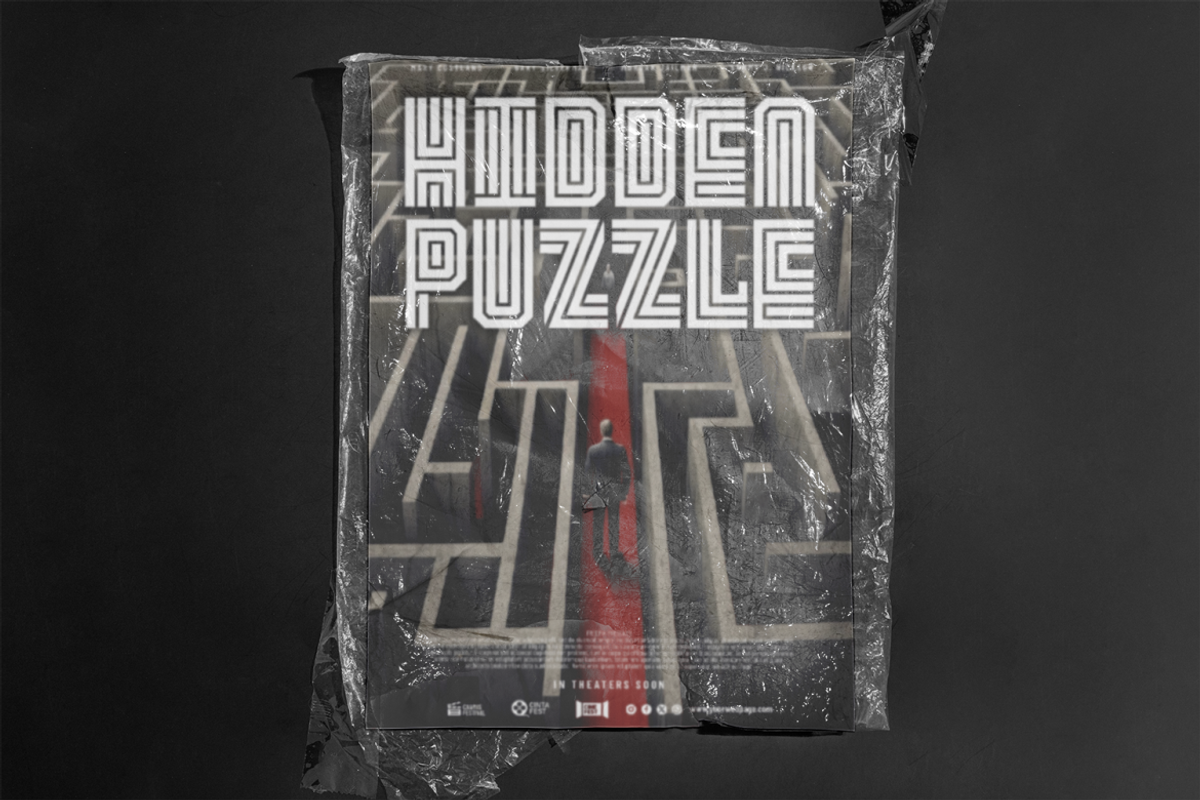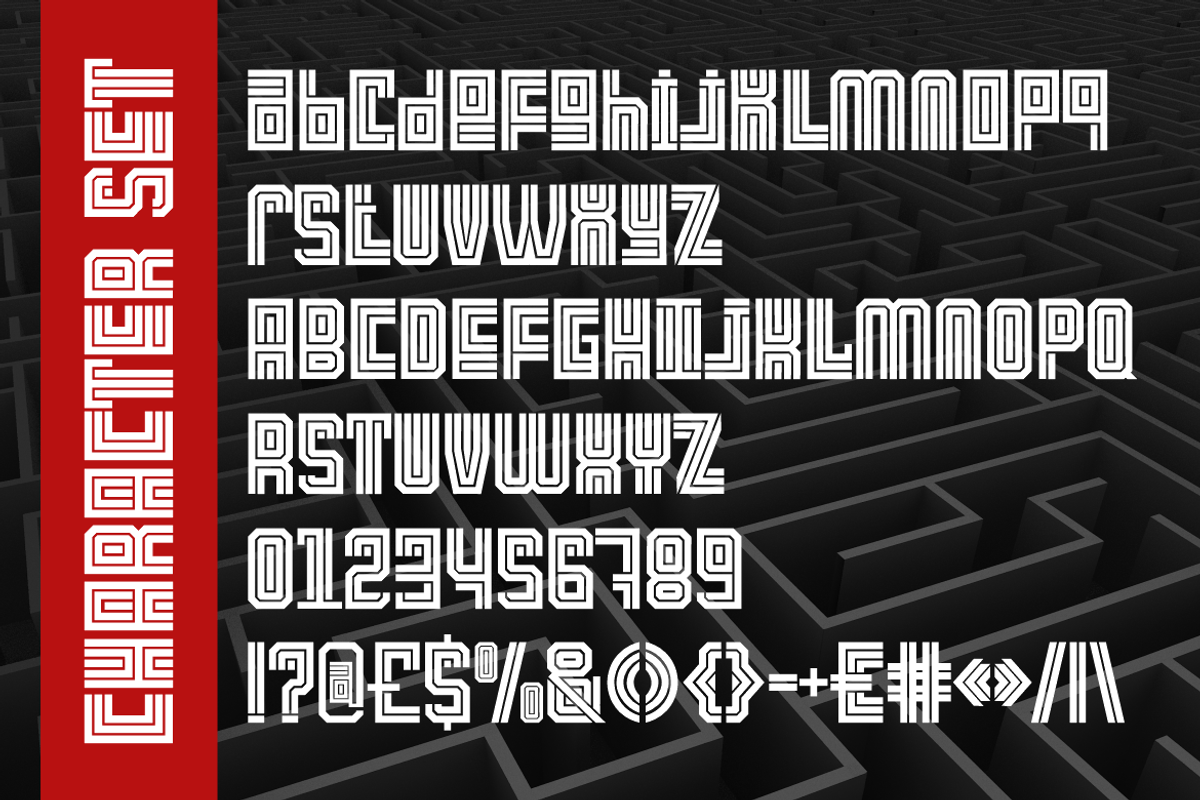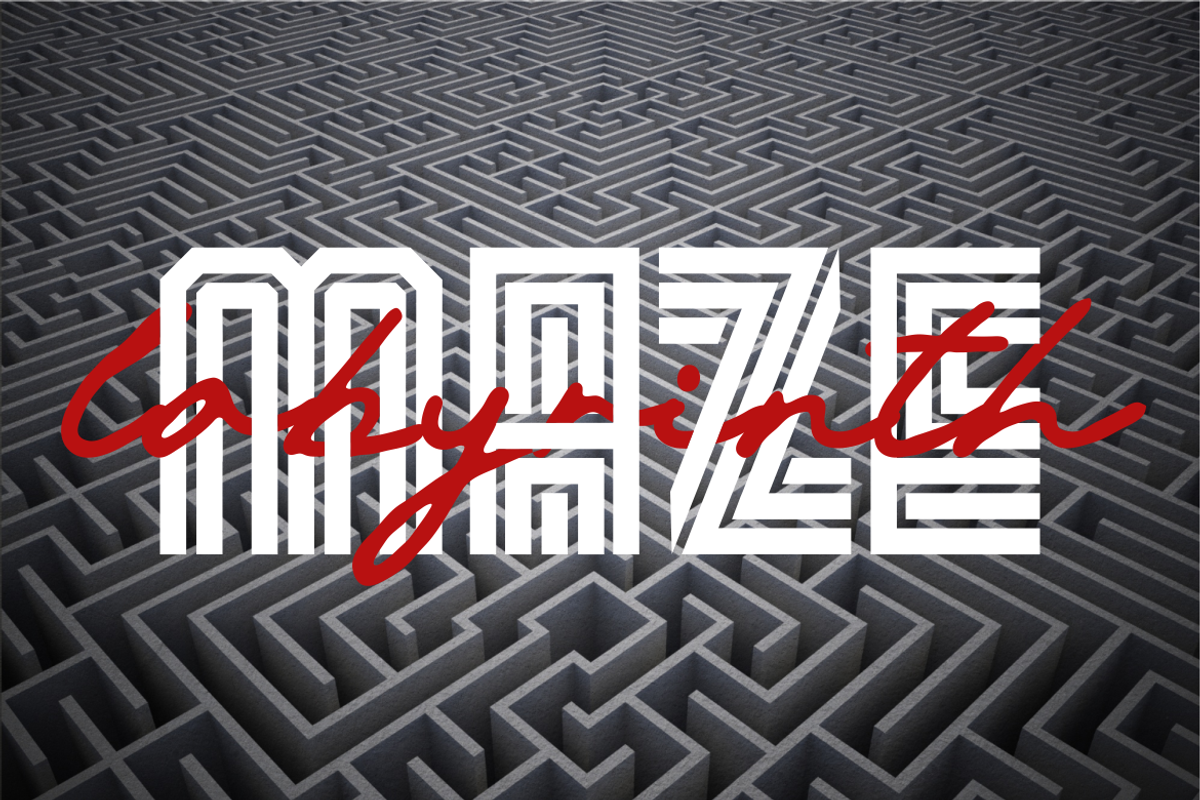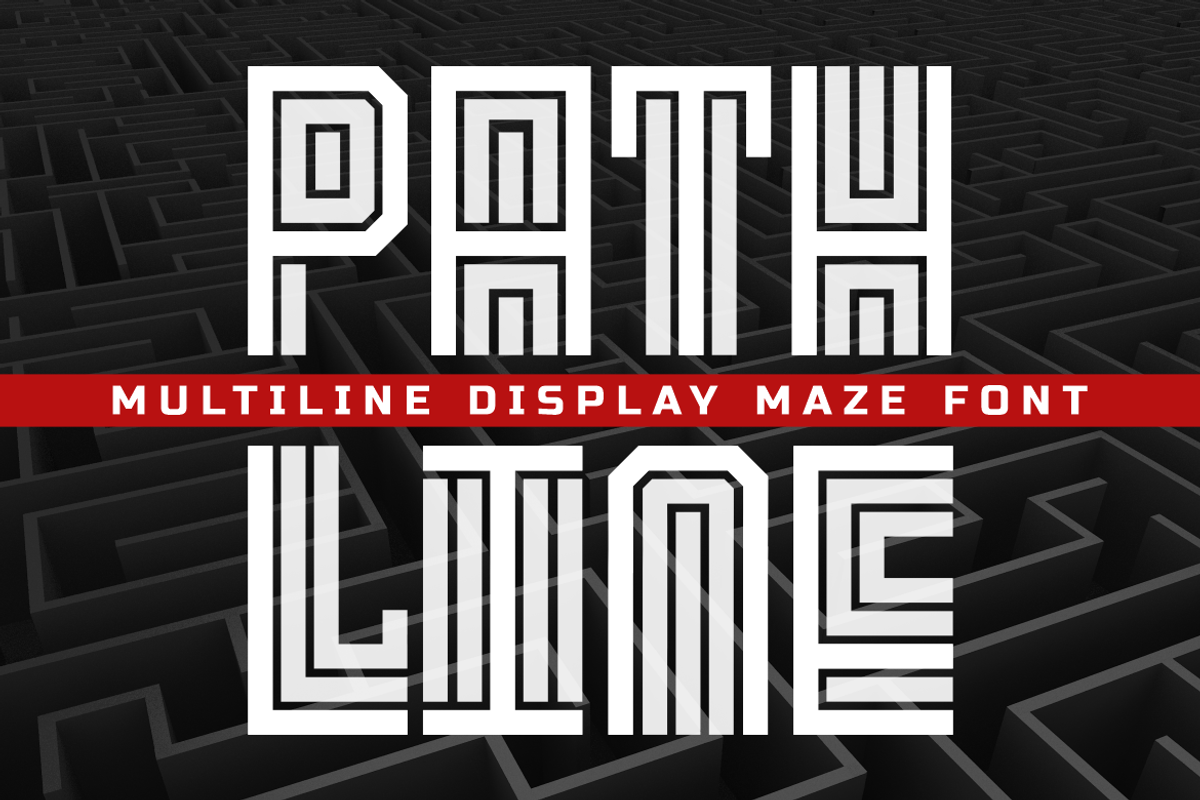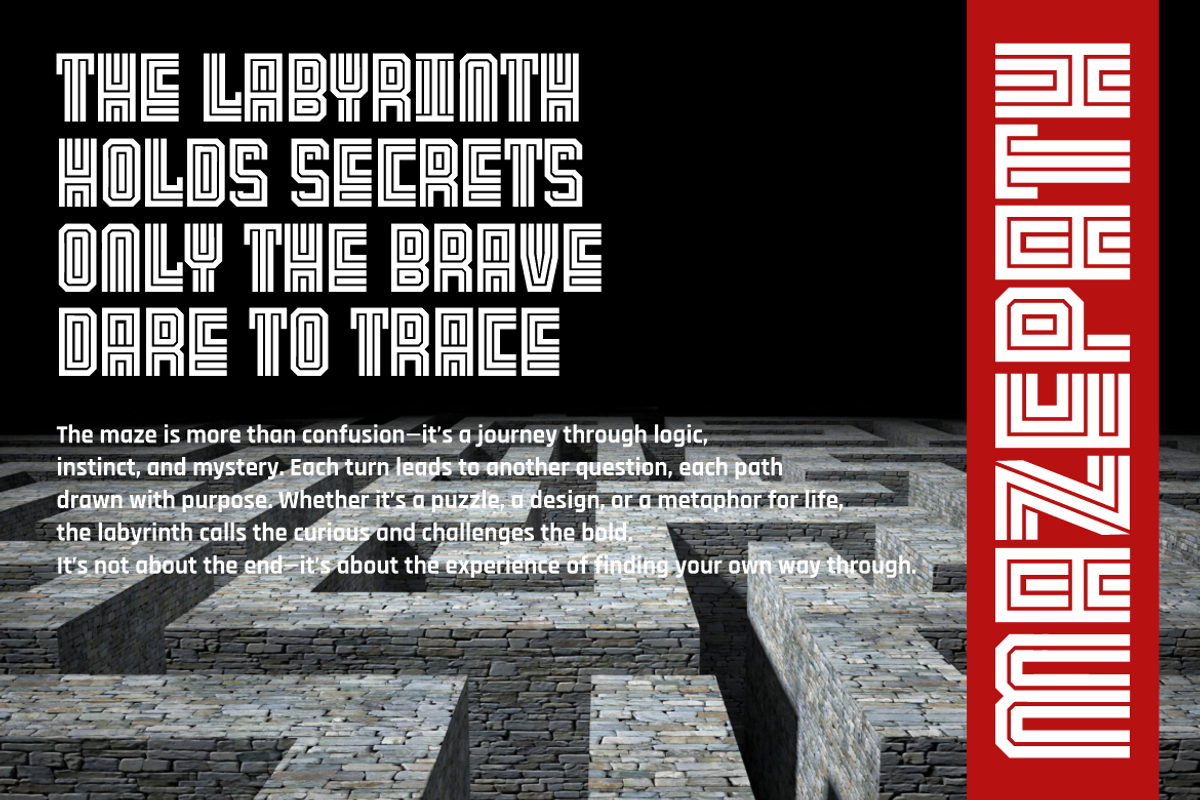
Pathline Multiline Maze Font
Pathline is a bold display font inspired by labyrinths, puzzle grids, and maze architecture. The design showcases clean, high-contrast lines arranged in a multilayered format that mimics paths within a structured maze. Each character is constructed with stacked vertical and horizontal bars, providing a sense of movement and depth. The glyphs feel dynamic and complex, yet surprisingly readable, making them ideal for impactful titles, editorial layouts, or visual storytelling. With uppercase, lowercase, numbers, and punctuations, this font delivers flexibility for various creative projects. Its futuristic edge and symmetrical form make it suitable for mystery posters, conceptual branding, or album art.
Pathline offers a unique visual rhythm, perfect for design work that demands both form and function. The font works well in digital and print media, particularly where intrigue, strategy, or psychological depth are core themes. From movie titles to tech event posters, from escape room flyers to concept packaging, this typeface transforms flat words into architectural narratives. Let your audience lose themselves in every letter—Pathline isn't just a font; it's a journey of perception.